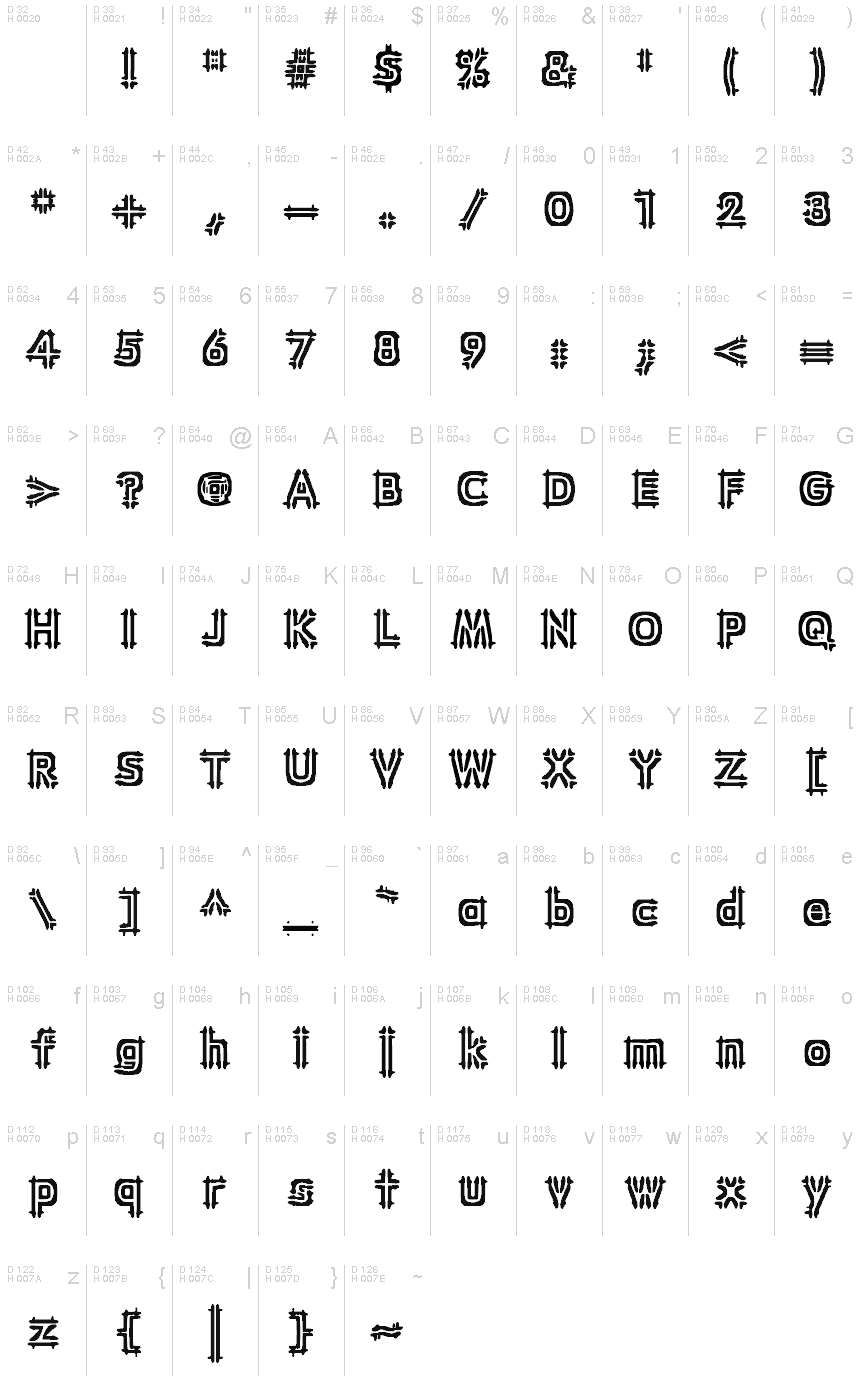
Wincing BRK
Wincing BRK, a creation of ÆNIGMA FONTS, stands as a bold and distinctive member of the Wincing font family. This gothic typeface boasts semi-expanded letterforms that command attention with their weighty presence on the page. The aesthetic appeal of Wincing BRK lies in its masterful blend of traditional gothic elements with a contemporary twist, resulting in a font that is both commanding and versatile.
The robust nature of its bold weight makes it an ideal choice for projects requiring a touch of drama and sophistication. Whether it's for impactful headlines, eye-catching branding, or evocative editorial design, Wincing BRK delivers an unmistakable presence. Its semi-expanded width offers an elegant readability that ensures legibility even at larger scales.
Embrace the power and style that Wincing BRK brings to your creative endeavors – from digital graphics to print media – and let its unique character transform your messages into captivating visual statements.